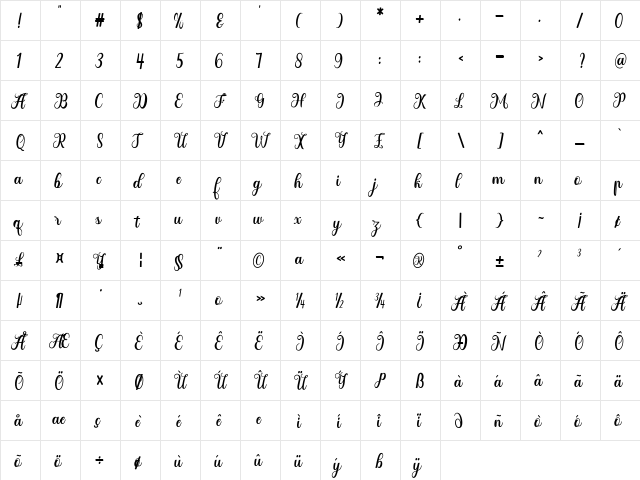
Humairah Regular
| Foundry | Marwah |
| Designer | marwah |
Design Context for Humairah Typeface
Humairah is a composed and adaptable typeface that performs quietly and consistently across a wide range of design contexts.